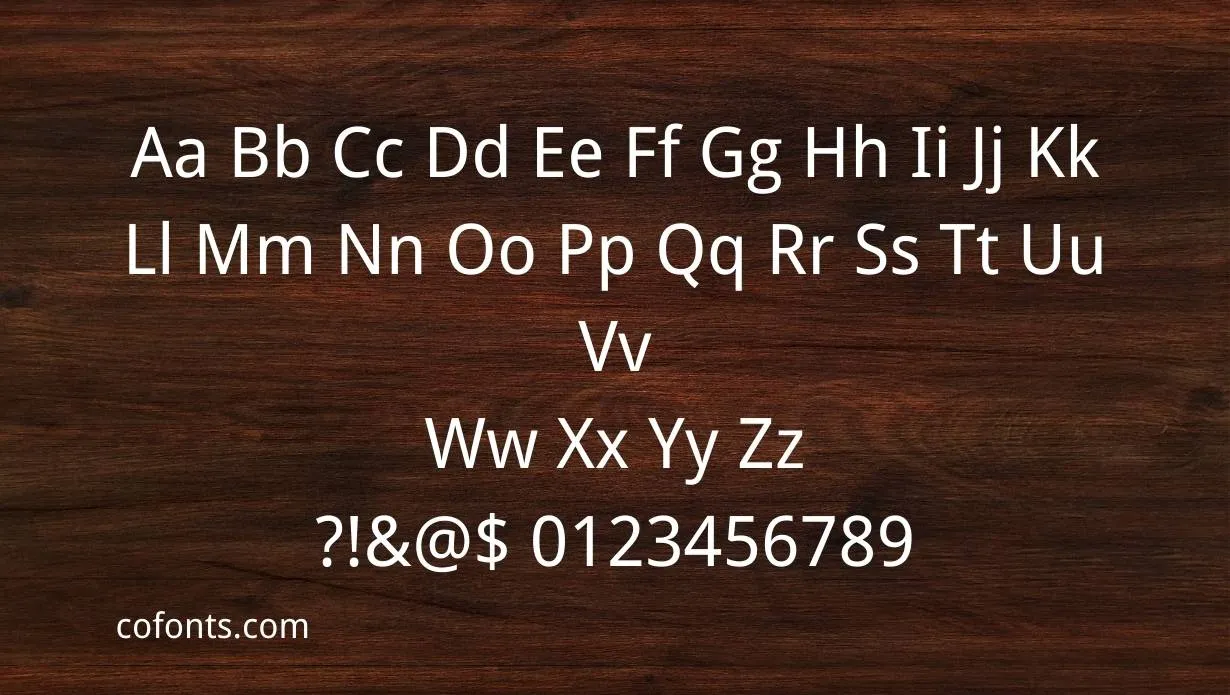
Droid sans Font belongs to the sans serif family and was developed by Steve Matteson. It was released in 2007 and included in the Android operating system. The Droid sans Typeface has unique characteristics such as wide proportions, open apertures, and large x-height. All these features make this font highly readable on mobile devices.
This font is perfect for body text and can be used for both digital and print purposes. The copy and paste function of this family is best for all text designs. For more classic features, you will have to use its alternative steelfish font which has the same features.
For instance, the line height should be at least 1.5 times the font size, and kerning should be turned on. In addition, Droid sans Typeface should be used for headings or titles as it can appear too small. The generator tool of this family is very classic. For CSS, this typeface is best and classic.
Usage of Droid Sans Font
The value of this family is increasing day after day. You can use it for plenty of projects like web development, blog writing, articles, and many more. If anyone wants to get success in all of his projects then use rotis font by making a strong pairing with this typeface.
Droid sans Typeface is one of the most popular fonts used by developers and designers. It is simple, yet highly readable and perfect for body text. In addition, this amazing typeface is suitable for use in headings or titles. It’s best for all large paragraphs and short paragraphs.
Name | Droid sans Font |
Style | Sans Serif |
Designer | Steve Matteson |
What is the type of Droid Sans Font?
Droid sans Font is a sans serif font. This font was released in 2007.
Is Droid Sans a Google font?